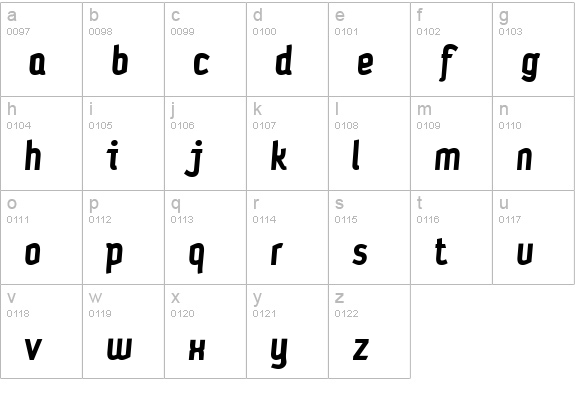
Introducing Petrol-BoldItalic, a stunning font that is sure to make a bold statement. With its elegant and sleek design, this typeface exudes confidence and sophistication. The italicized style adds a touch of flair and uniqueness, making it perfect for projects that require a touch of creativity and individuality. Petrol-BoldItalic is a versatile font that can be used for a wide range of purposes. Whether you're designing a logo, creating eye-catching headlines, or crafting beautiful invitations, this font will elevate your designs to new heights. Its bold strokes and distinctive curves command attention, making any text stand out with a sense of power and authority. What sets Petrol-BoldItalic apart is that it is not only visually stunning, but also freely available to download. FontsMarket.com offers this font for free, allowing you to enhance your designs without breaking the bank. Now, you can access this exceptional typeface without any limitations, giving you the freedom to use it in your personal and commercial projects. With Petrol-BoldItalic, you have the opportunity to make a lasting impression. Its modern and stylish appearance will captivate your audience, leaving them in awe of your impeccable design choices. So why wait? Download Petrol-BoldItalic today and experience the beauty and versatility of this amazing font. Let your creativity soar and watch as your designs come to life with this stunning typeface at your fingertips.